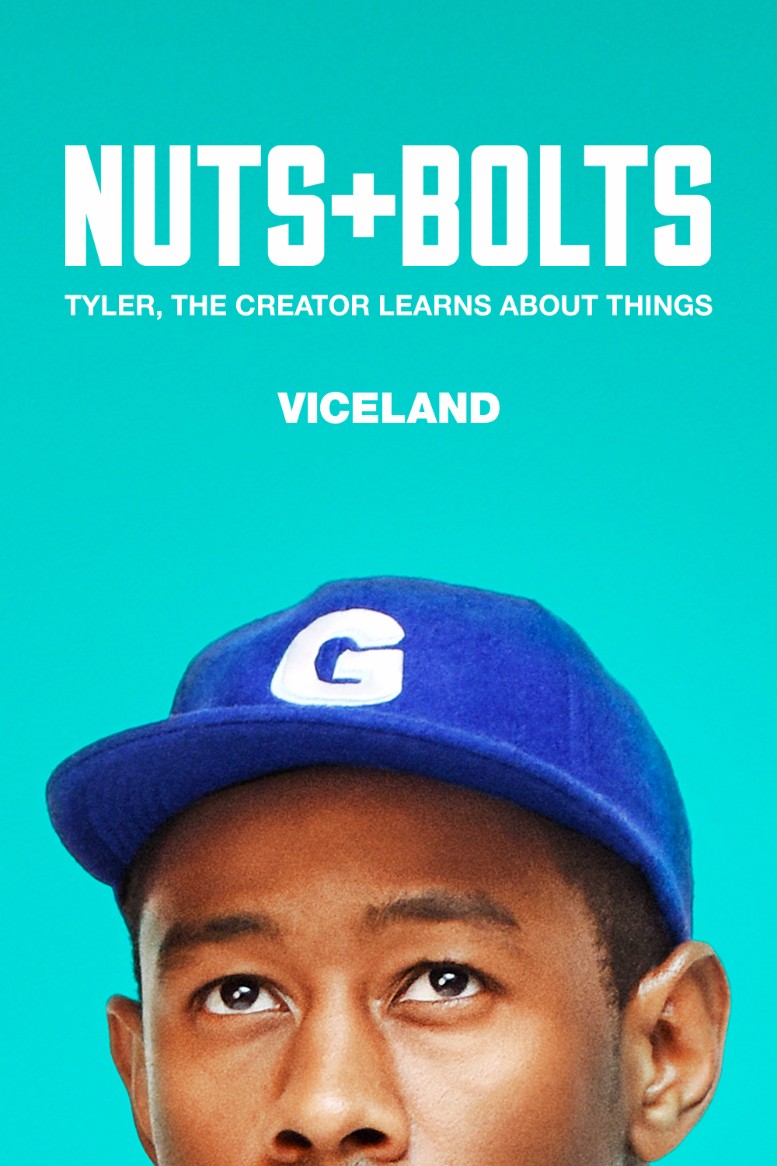
Nuts + Bolts Font
DocumentaryNuts + Bolts is a television show created and hosted by Tylor, where he explores the inner workings and behind-the-scenes of various industries and technologies, breaking them down to their basic components. The series aired in August 2017 on Viceland.
The title font for the TV series is Sullivan Fill. Designed by Jason Mark Jones, Sullivan is a bold display font that comes in Regular, Fill, and Bevel variations. To learn more and download the font please click here.